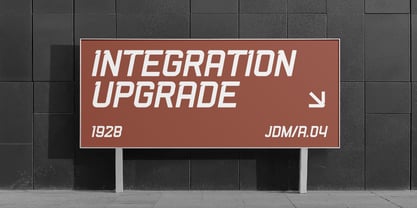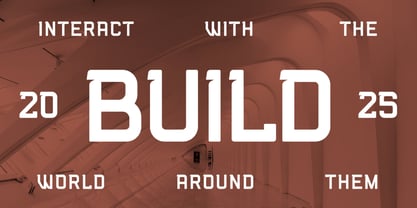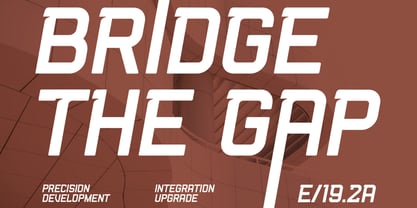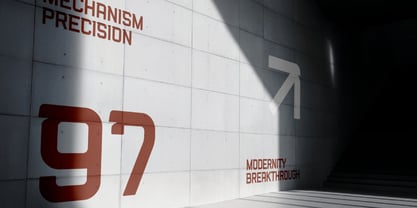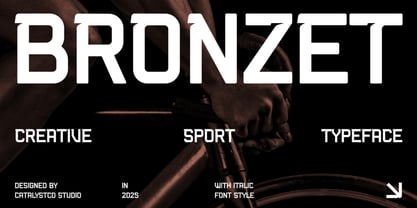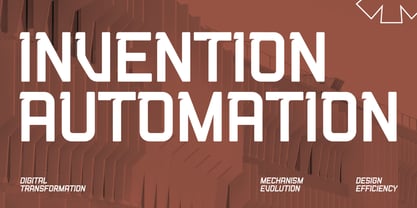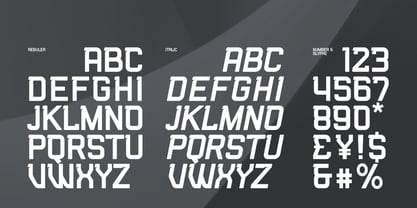
Bronzet
by Catalystco Std
The Bronzet Font Family was designed by and published by Catalystco Std. Bronzet contains 2 styles and family package options. More about this family
Bronzet Creative Sport Typeface delivers a bold and dynamic look shaped by athletic energy and modern precision. Its strong, squared structure combined with subtle curvature evokes movement, endurance, and power—perfect for sports branding, activewear identity, or energetic headlines. The italic style enhances motion and competitiveness, giving every layout a sense of speed and confidence. Includes uppercase letters, numerals, and symbols in Regular and Italic styles. Bronzet combines modern sport aesthetics with professional versatility for impactful typographic compositions.